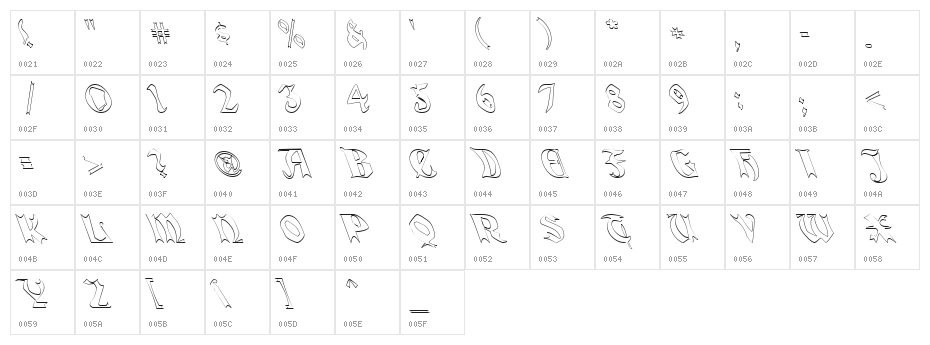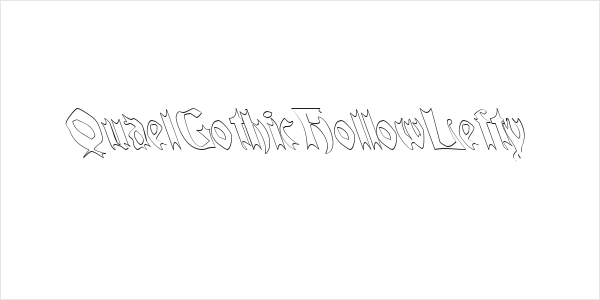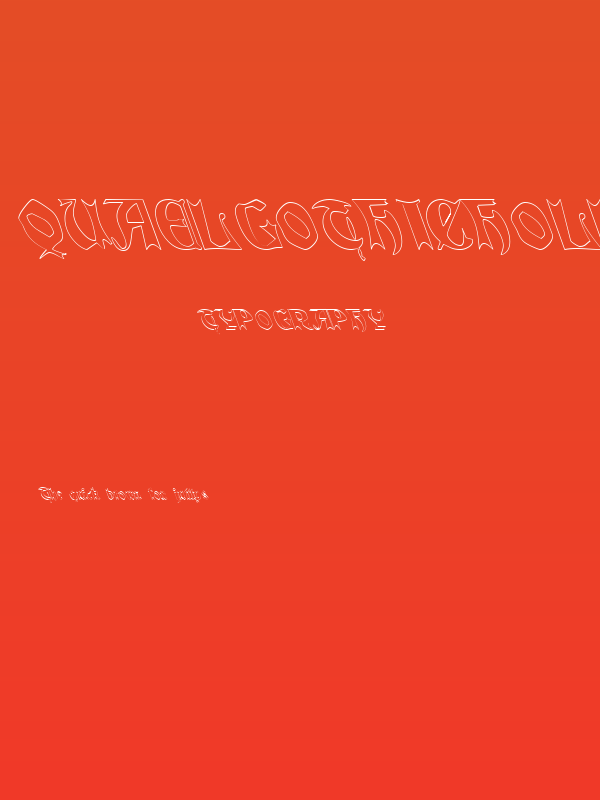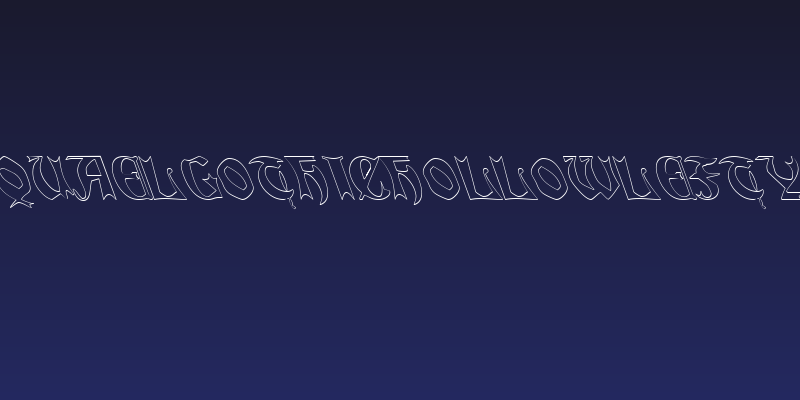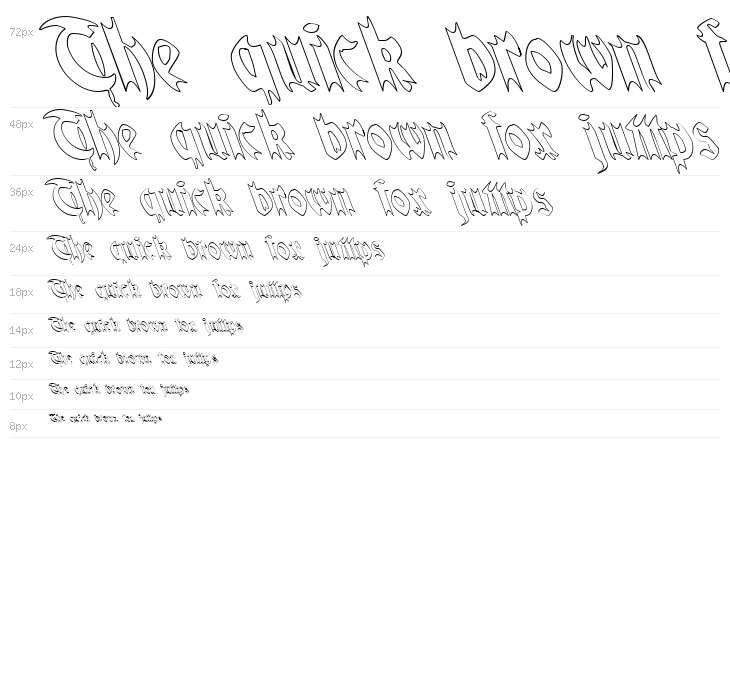
QuaelGothicHollowLefty Font
QuaelGothicHollowLefty Description
This font features a unique and bold design with a hollow, outlined appearance. The characters have a distinct leftward slant, giving them a dynamic and unconventional look. The uppercase letters are sharp and angular, while the lowercase letters maintain a similar style with slightly softer curves. Numbers and special characters follow the same aesthetic, ensuring consistency across all elements. This font is highly decorative and eye-catching, making it suitable for projects that require a standout visual impact.
| Proposed Projects | Ideal for posters, album covers, and creative branding projects that require a distinctive and artistic touch. |